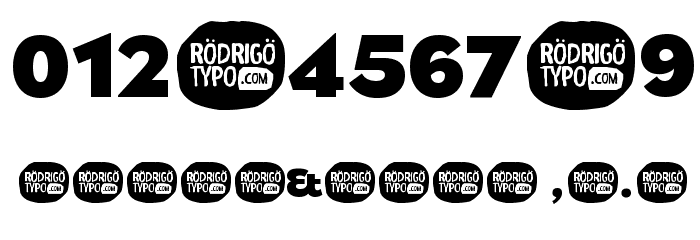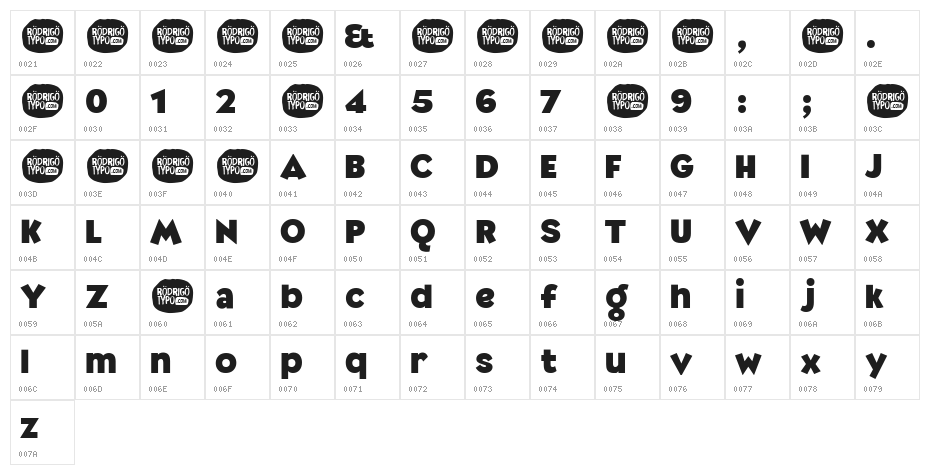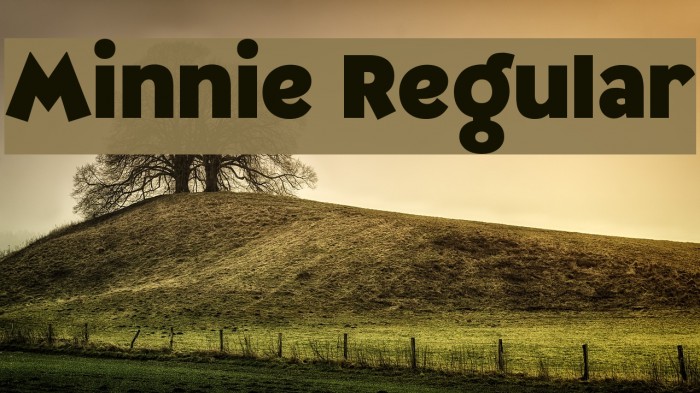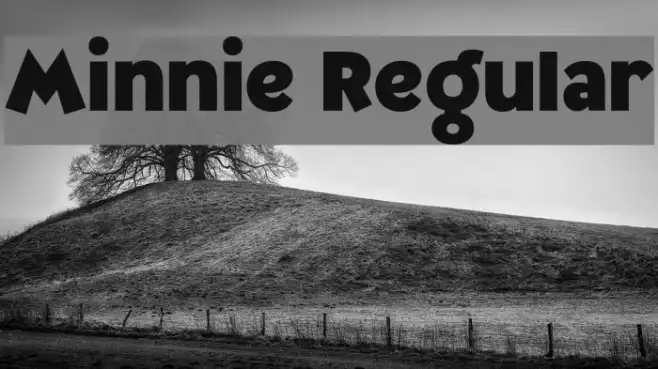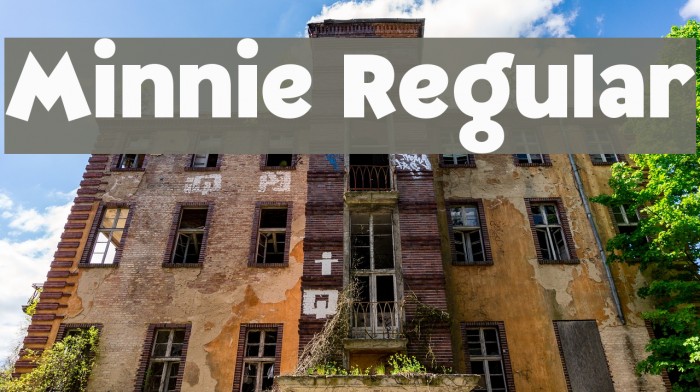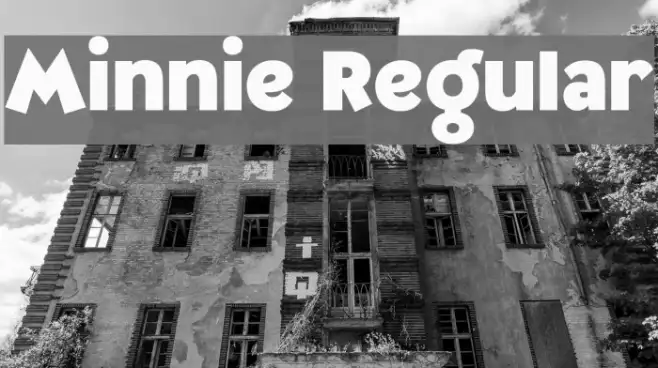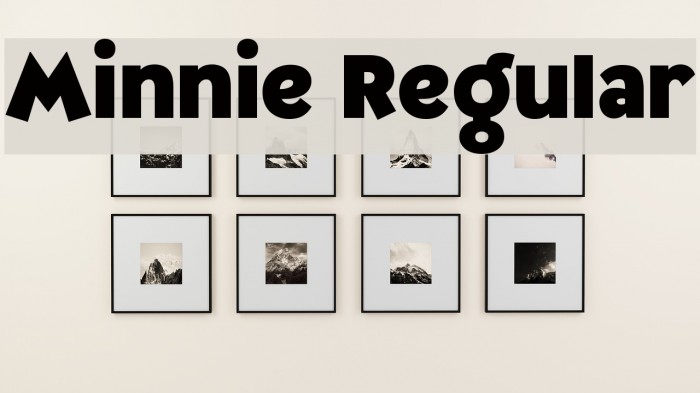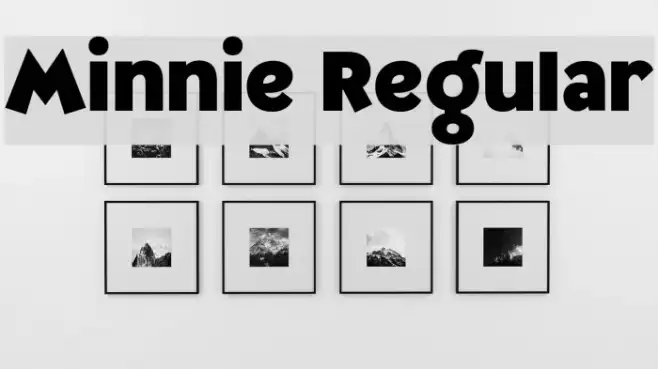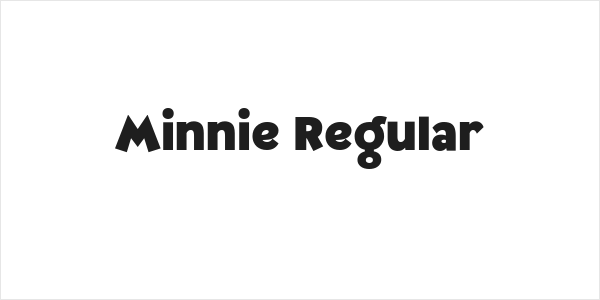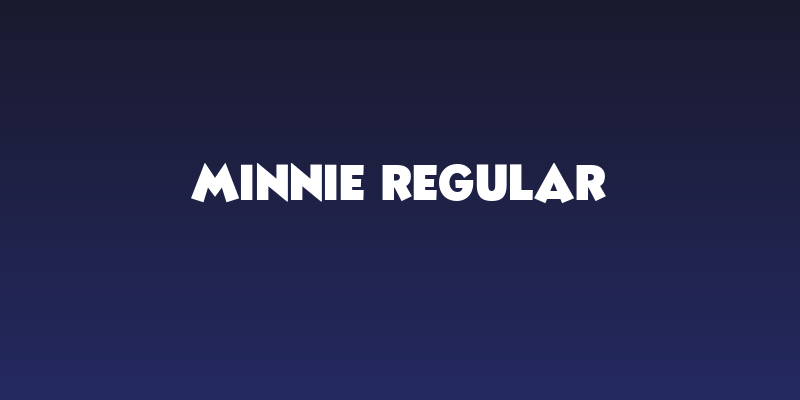
Minnie Regular Font
Minnie Regular Description
This font features bold, geometric characters with a playful and modern aesthetic. The uppercase letters are particularly striking, with sharp angles and a strong presence. The lowercase letters maintain a consistent weight, offering a rounded and approachable feel. Numbers are bold and clear, making them suitable for attention-grabbing designs. The special characters are designed with the same boldness, ensuring consistency across all text elements. This font is ideal for projects that require a strong visual impact, such as branding, advertising, and headlines.
| Proposed Projects | Ideal for branding, advertising, headlines, and any project requiring a strong visual impact. |